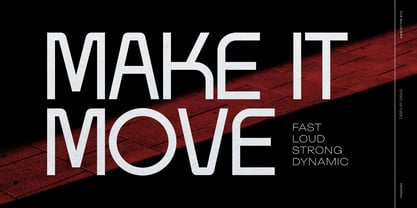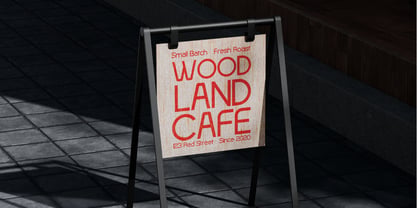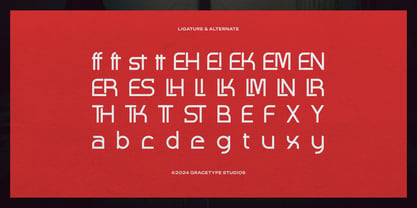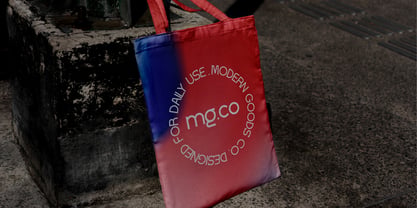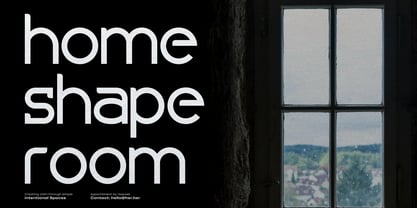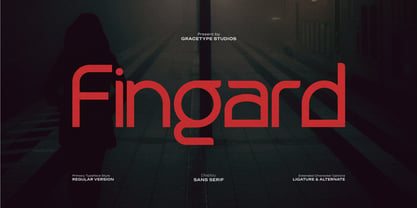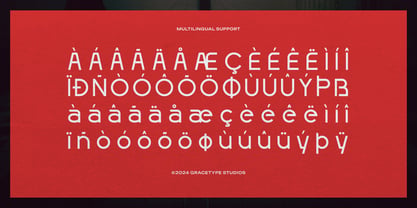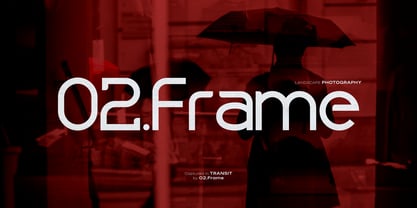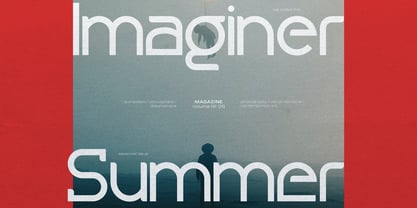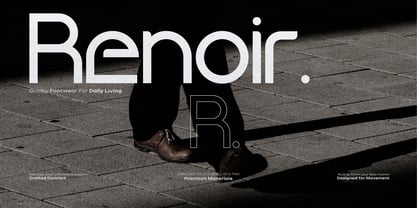
Fingard
The Fingard Font Family was designed by and published by Tini Fitriani. Fingard contains 2 styles and family package options. More about this family
Fingard | Display Sans Serif, from Gracetypestudio, suitable for any projects such as: logos, branding projects, homeware designs, product packaging, mugs, quotes, posters, shopping bags, t-shirts, book covers, name card, invitation cards, greeting cards, label, photography, watermark, special events, and all your other lovely projects that need a Sans Serif taste.